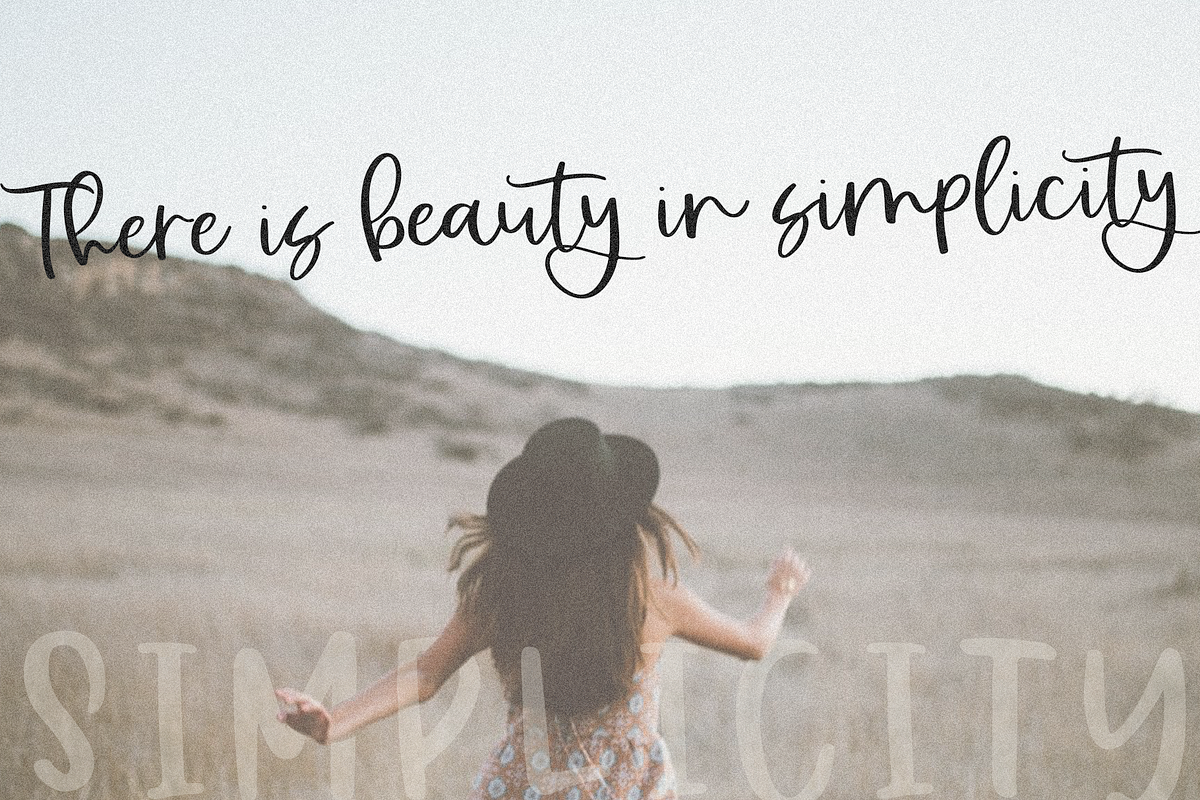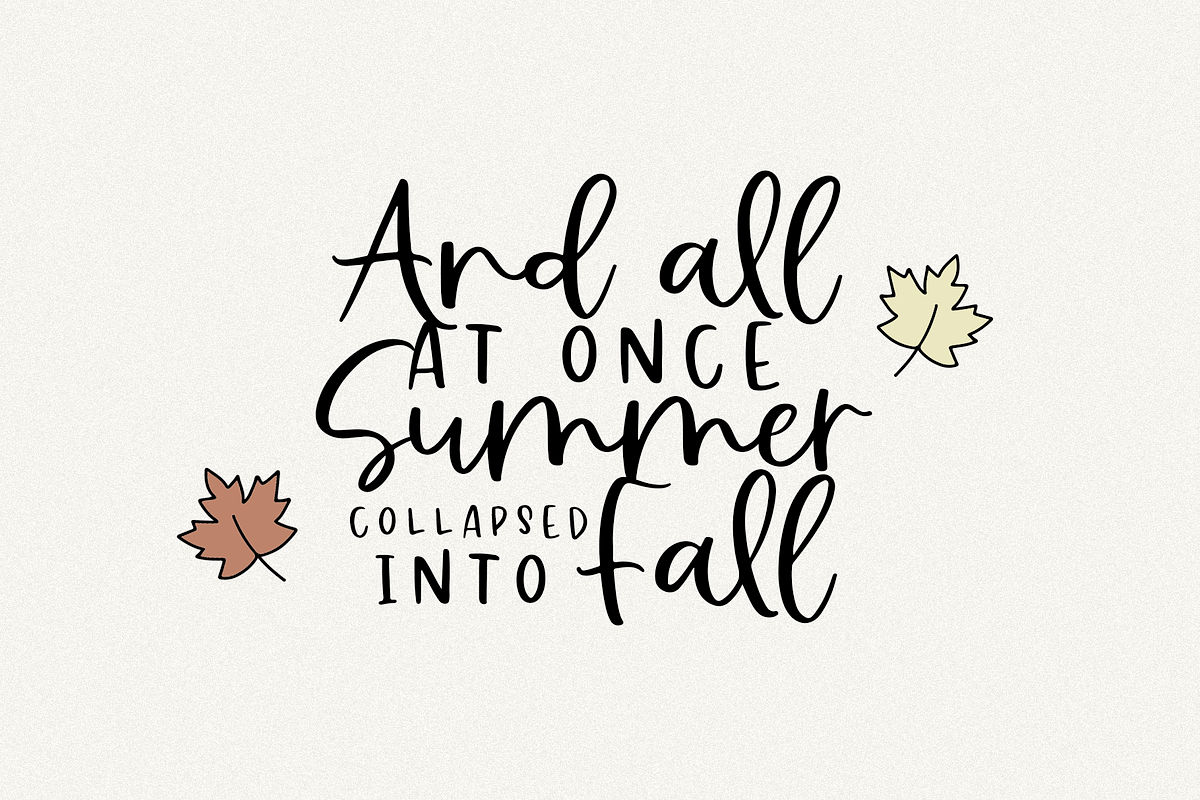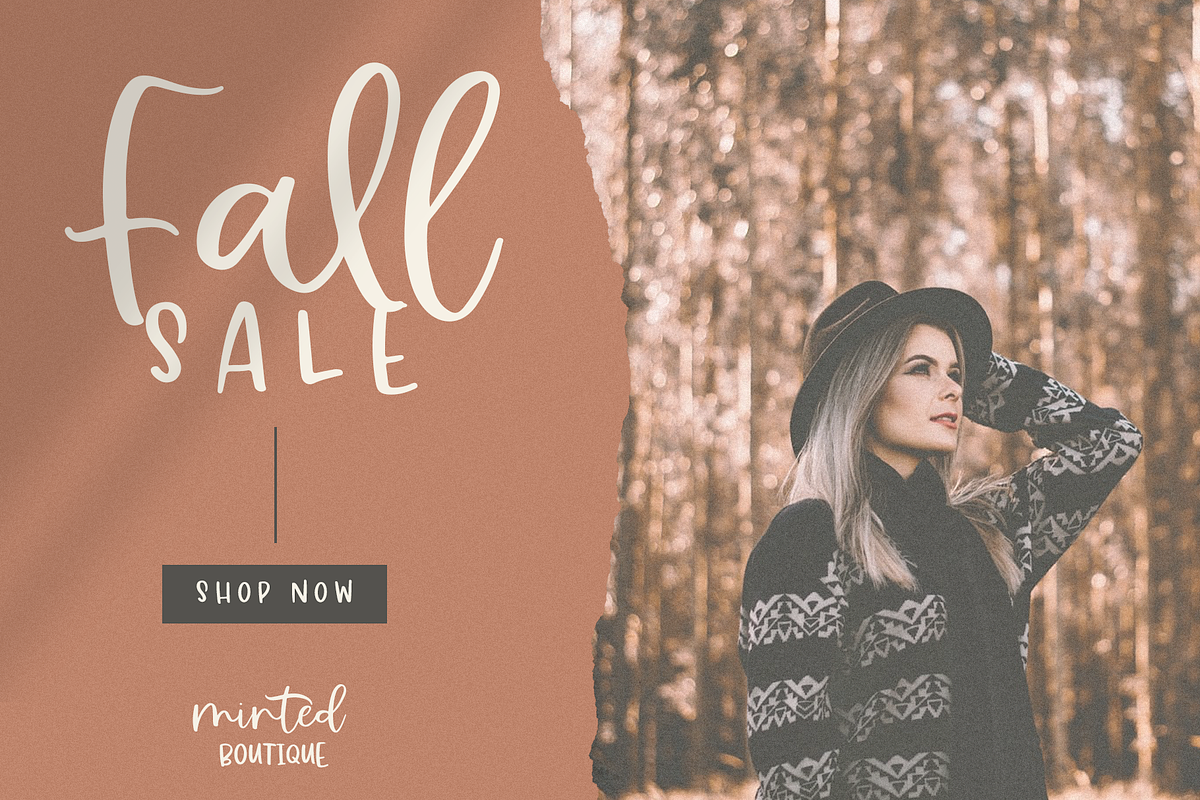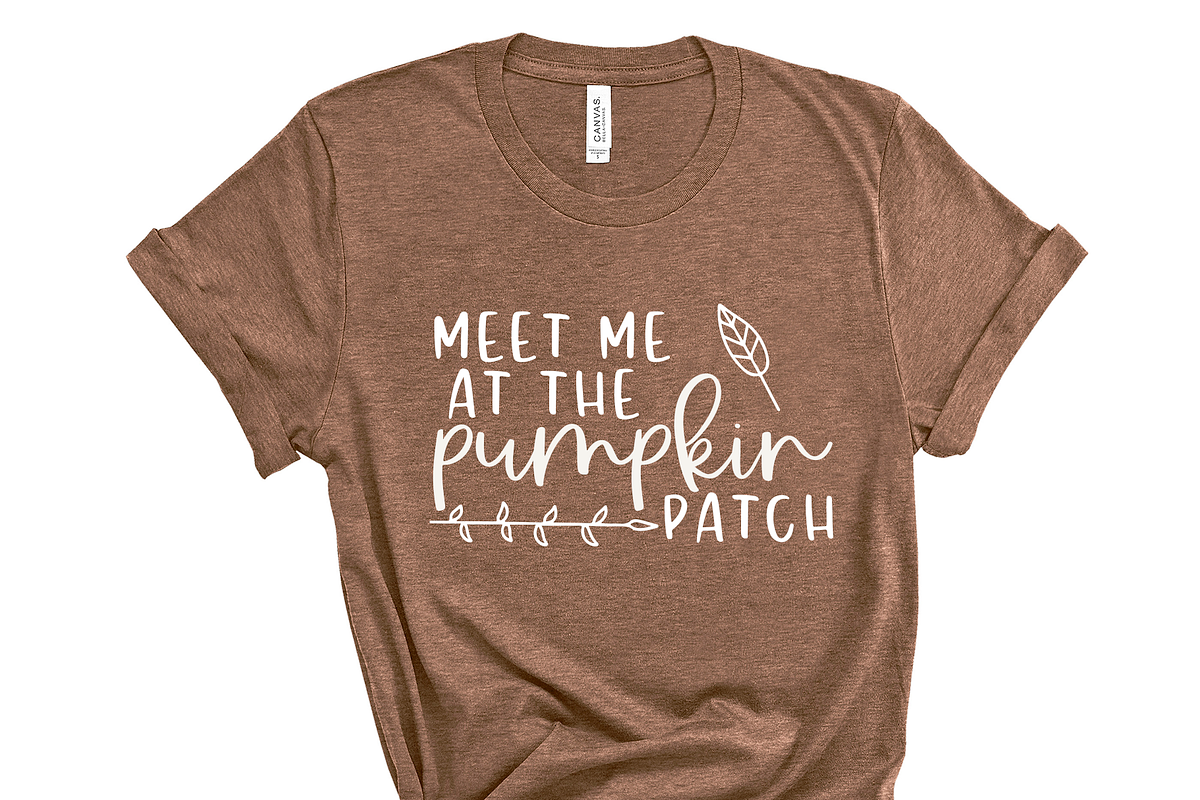
Falling Leaves | Script Font Trio
Falling Leaves is a print/script font duo. A set of hand-drawn leaves is also included as an additional font file.
This font is perfect for branding, quotes, social media, blogs, logos, signs, and more!
Falling Leaves Script
Falling Leaves Extras